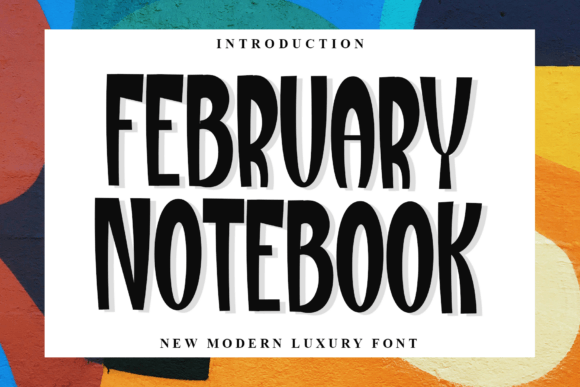
February Notebook: The Display Font for Clearer Campaigns
It was 4:00 PM on a Tuesday, and I was staring at a blank slide deck for a Valentine's Day product launch. The client needed a visual hook that felt soft yet distinctive, something that would stop the scroll on Instagram without screaming for attention. We had tried standard sans-serifs, but they felt too corporate for the emotional tone of the campaign. That was when I remembered February Notebook, a beautiful and eye-catching font designed with a soft, unique touch. Its distinctive strokes give it a special character, making it meaningful and versatile for future use. With just a few keystrokes, I replaced the generic header, and suddenly the entire design shifted from "corporate announcement" to "personal invitation."
How February Notebook Elevates Social Media Graphics and Instagram Posts
When you are designing Display graphics for social platforms, every pixel counts, and February Notebook brings an immediate sense of warmth to your feed. Unlike rigid geometric fonts, this typeface offers a fluidity that resonates deeply with audiences scrolling through their morning coffee or evening downtime. I used it for a series of promotional images where the text needed to feel like a handwritten note rather than a digital ad. The result was higher engagement because the font bridged the gap between brand and user.
- Instagram Stories: Use February Notebook for bold overlays that pop against video backgrounds while maintaining readability.
- Pinterest Pins: The soft strokes create an inviting aesthetic that encourages users to click through to your blog or shop.
- Facebook Ads: A unique Fonts choice can lower bounce rates by making the offer feel exclusive and curated.
The key here is versatility. Because its distinctive strokes give it a special character, February Notebook works equally well for a sale announcement and a heartfelt quote graphic. It transforms standard marketing materials into branded assets that feel crafted by hand, even when produced digitally.
Creating YouTube Thumbnails with February Notebook for Higher Click-Through Rates
In the crowded world of video content, your thumbnail is the first impression, and February Notebook helps you stand out in a sea of uniform typography. When I tested different headlines for a webinar promotion, the version using this display font saw significantly better visibility. The soft, unique touch ensures that the text doesn't look harsh against complex background images, allowing the message to cut through the noise.
For YouTubers and content creators, February Notebook serves as a powerful tool for establishing a consistent visual identity. Whether you are announcing a new course, launching a merchandise drop, or sharing a personal update, the font adds a layer of personality that generic typefaces simply cannot match. By choosing a font that feels meaningful, you signal to your audience that the content inside is worth their time.
Why February Notebook Works Best for Email Banners and Website Headers
Email open rates often depend on the subject line and the preview image, and February Notebook delivers exactly what modern inboxes need: clarity with charm. When building email banners for a seasonal sale, I found that this font allowed for shorter, punchier headlines that were instantly readable on mobile devices. Its distinctive strokes give it a special character that prevents the text from getting lost in cluttered layouts.
On landing pages, the right Display font sets the tone before a visitor even reads the copy. Using February Notebook for website headers creates an immediate sense of elegance and approachability. It pairs beautifully with clean body text, creating a visual hierarchy that guides the user's eye naturally toward the call-to-action button. This strategic use of typography reduces cognitive load, making it easier for potential customers to understand your value proposition quickly.
Designing Wedding Invitations and Elegant Branding with February Notebook
Beyond commercial campaigns, February Notebook shines in high-end creative projects where emotion drives the design. I recently collaborated with a local florist who wanted to rebrand her business with a softer, more romantic identity. The distinctive strokes give it a special character that perfectly captured the essence of floral arrangements and delicate events. With its soft, unique touch, the font became the cornerstone of her new logo and invitation suite.
This versatility makes it an essential asset for wedding planners, boutique owners, and lifestyle bloggers. Whether you are designing a digital RSVP card or a printed menu, February Notebook elevates the perceived value of the project. It proves that a Fonts selection isn't just about legibility; it's about evoking a feeling. When clients see this level of care in the typography, they trust the brand more implicitly.
Pairing February Notebook for Maximum Readability and Visual Impact
To get the most out of February Notebook, you need to consider how it interacts with other typefaces in your design system. While it is a statement piece, it works best when paired with a clean sans-serif font for body copy or a subtle serif font for secondary information. This combination ensures that the soft, unique touch of the headline remains the focal point without overwhelming the reader.